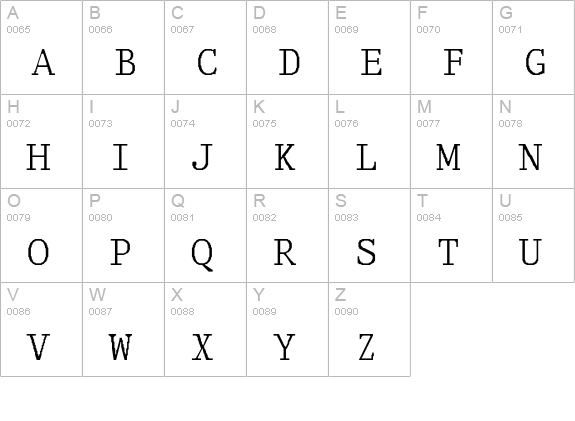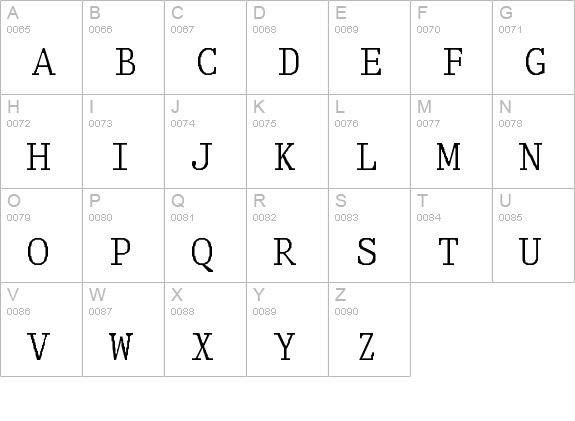
Delegate-Normal is the standard, neutral variant in the Delegate typeface family \xE2\x80\x94 well suited to general body text, paragraphs, and standard typographic work.
Delegate-Normal font is a versatile and elegant typeface that exudes professionalism and sophistication. With its clean lines and classic design, this font is perfect for a wide range of projects, from business presentations to creative designs. The balanced letterforms and smooth curves make it easy to read, while still maintaining a sense of style and elegance. Designed with versatility in mind, Delegate-Normal font can be used for both headings and body text, making it a great choice for all your typography needs. Whether you're working on a website, a brochure, or a branding project, this font will help you achieve a polished and professional look. Best of all, Delegate-Normal font is completely free to download at FontsMarket.com. So you can add this stylish typeface to your font library without breaking the bank. Don't miss out on this opportunity to elevate your designs with the timeless beauty of Delegate-Normal font.